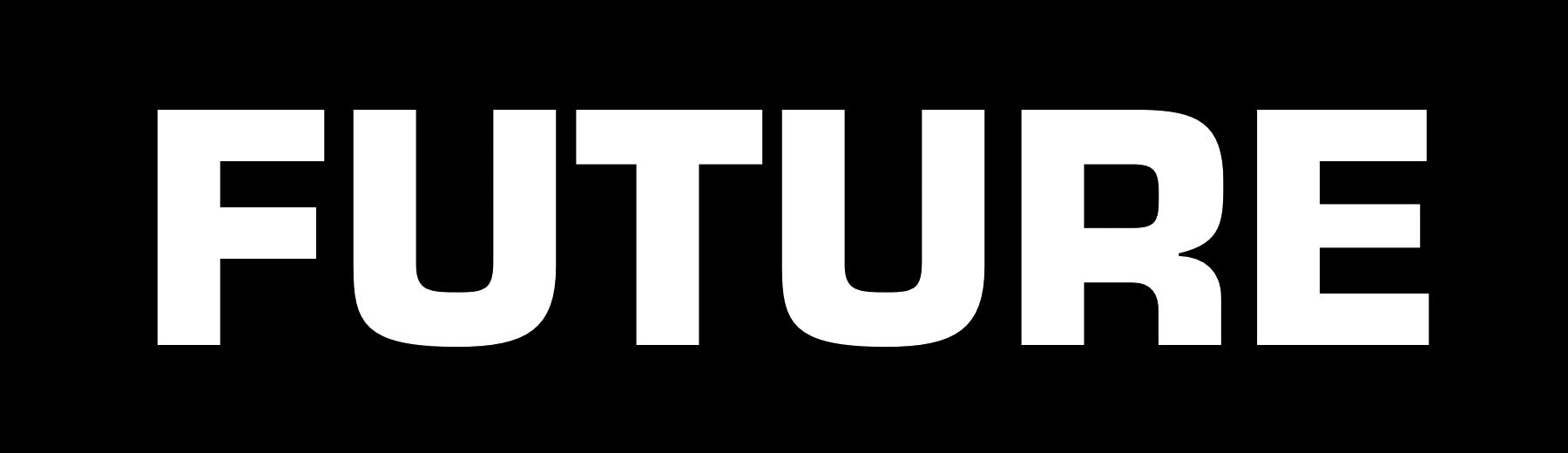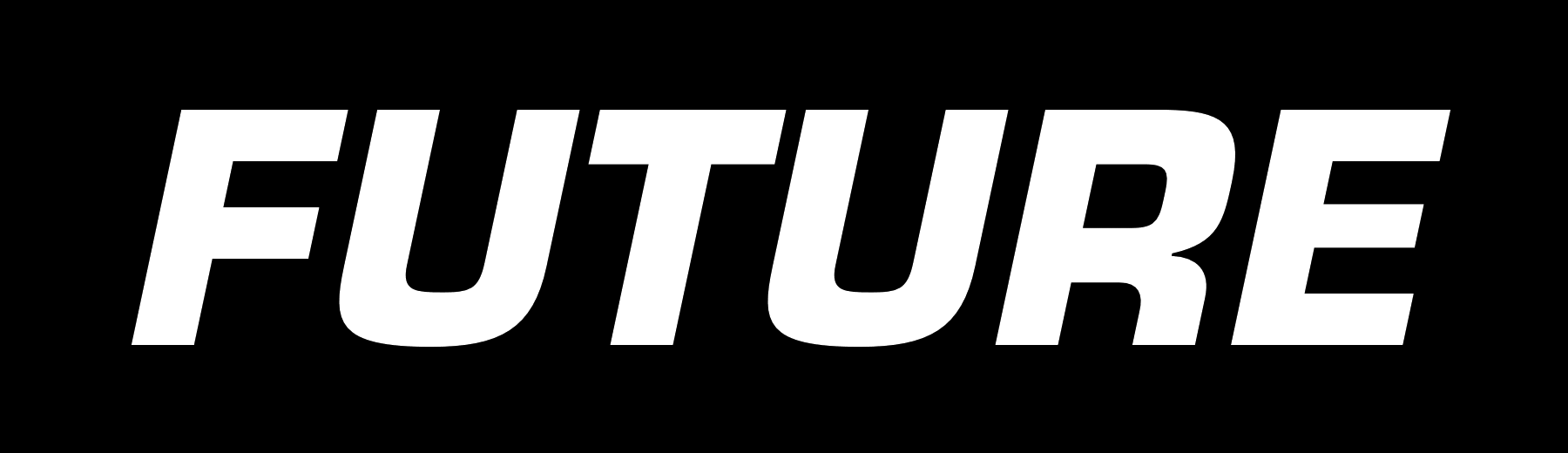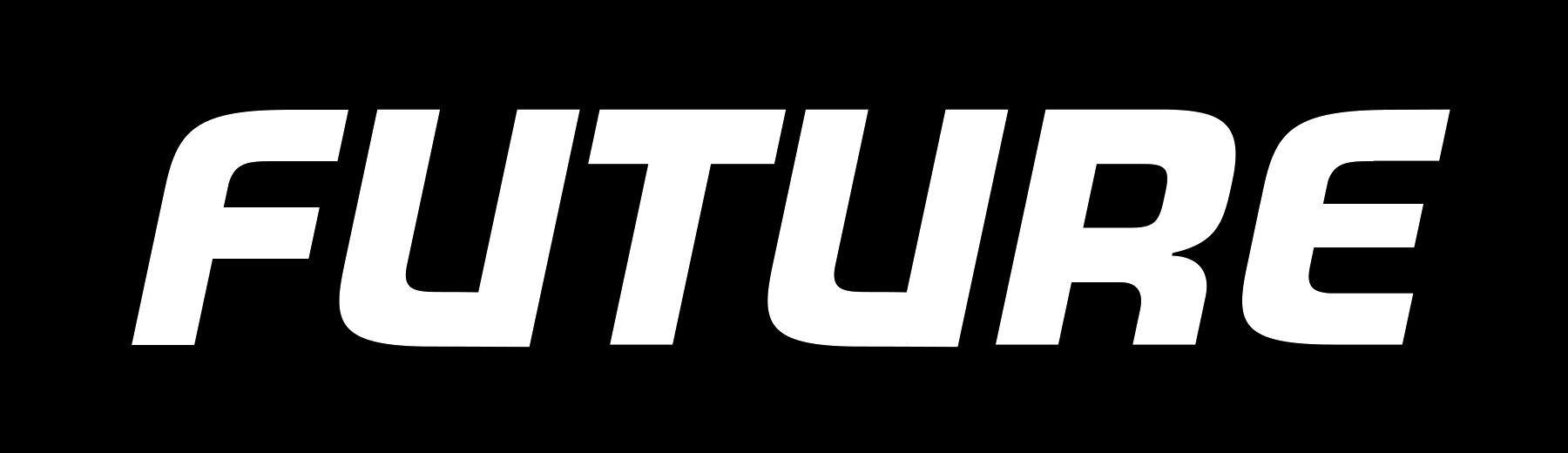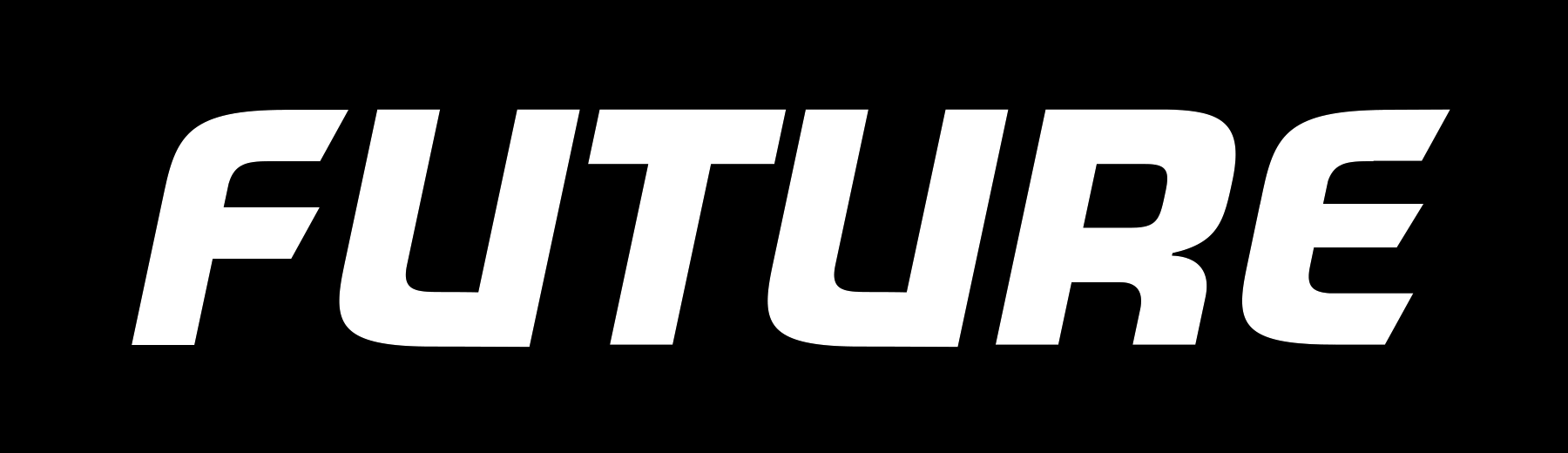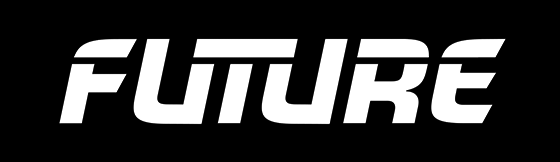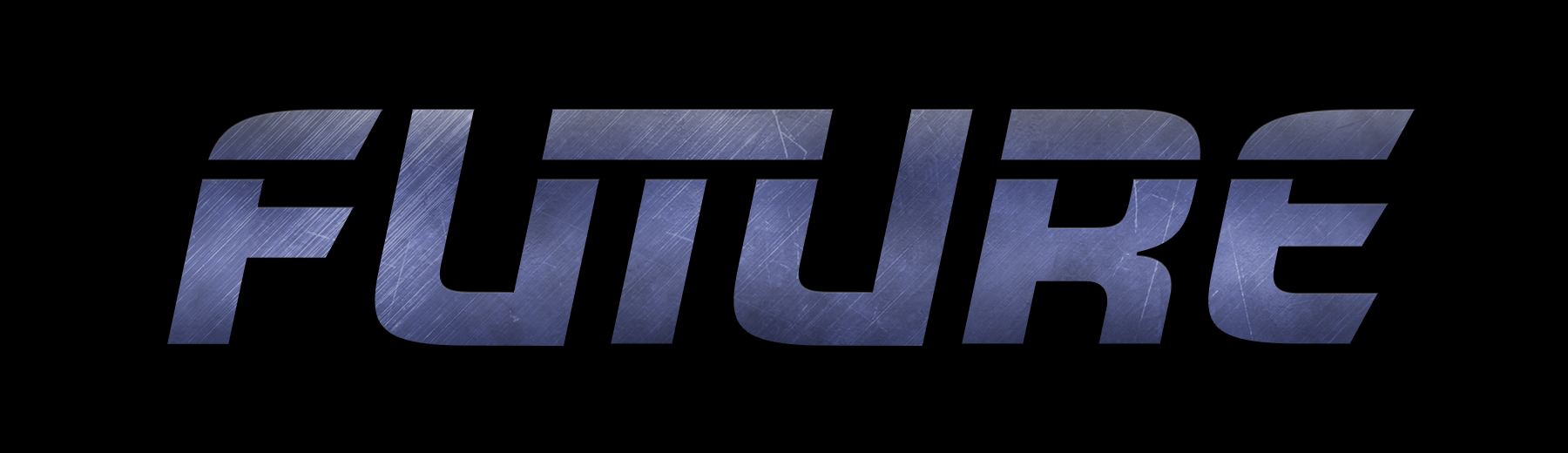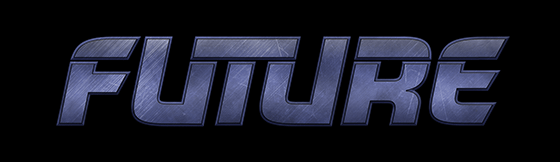
How To Make Your Text Look Futuristic
We’ve already seen how Eurostile Bold Extended is spectacularly effective at establishing a movie’s timeframe. But if Eurostile isn’t enough, there’s more you can do to clarify your movie’s timeframe. I’d like to introduce you to six easy rules that are pretty much guaranteed to position your text firmly in the FUTURE.
We’ll start with some simple sans-serif text, such as this randomly chosen word in Eurostile Bold. So far, so 2016:
Rule 1: First, let’s add an italic slant. We want it to look like the text is stretching towards 2020:
Hmm. It’s still a little boring. Rule 2: What if we make things a bit more curvy in some places, and a bit more angular in others? I hear that’s all the typographic rage in 2035:
That’s much better! There’s still more we can do, mind. Rule 3: How about adding some consummate Vs to a few of the letters? Yeah! That’d be cool!
Hello, 2050:
There’s still something missing, however – we’ve forgotten to take into account the devastating Kern Wars of 2067. Rule 4: Let’s combine a few letters into one, to make sure we’re not violating the Kern Tithe:
Now we’re talking! Let’s end with Rule 5: Remove an entirely pointless and arbitrarily segment of the text. In this case, we’ll remove a horizontal line from the majority of the word:
WOAH. That looks amazing! Who knew 2092 was so easy to reach?
D’you know what –I think we need a Rule 6 too. Let’s add a noise texture, some shamelessly steel-brushed metal, and a bit of moody blue lighting:
Finally, let’s emboss it to within an inch of its life:
…and add a god-damn star field:
BOOM. Welcome to the FUTURE!
Here’s how it looks if you put the whole thing together:
Now. Various permutations of these six rules have been applied in many different movies. Perhaps the Ur Example is Ridley Scott’s Blade Runner, which I may have slightly copied in my example above:
Blade Runner is far from the only example, however. The logotype for 2003’s Battlestar Galactica miniseries follows pretty much every rule to the letter (and adds some extruded Eurostile Bold Extended for good measure):
Transformers is similarly all-encompassing, taking the brushed metal effect to the extreme:
Guardians of the Galaxy also uses pretty much every trick apart from the italics:
…whereas RoboCop is all about those consummate Vs, plus the world’s most extreme embossment:
Star Wars, of course, takes Rule 4 and runs with it all the way to the bank:
…whereas The Amazing Spider-Man follows nearly all of the rules (and takes Rule 2 to extremes), although it will be receiving a visit from the Tithe Kern Police for Opportunities Missed:
Captain America: The Winter Soldier really likes applying Rules 2 and 3, plus some of the best Rule 6 you’ll ever see:
Alien vs. Predator is ridiculously italic and metallic:
G.I. Joe: Retaliation uses every trick apart from the kerning:
And WALL·E is all about Rule 2:
Finally: if you have any lingering doubts that these six rules spell FUTURE, here are Rules 1, 2, and 4 in action for the iconic logotype for none other than Back To The Future itself:
Hello, the FUTURE. It’s good to be back.
UPDATE: Several people have noted that I missed pretty much the textbooking-est textbook example of this trope – namely, Star Trek: The Next Generation:
I mean seriously. It even has a God-Damn Star Field in the background. (I swear I didn’t have this logotype in mind when I wrote the article, but boy, does it prove the point.)
1. I feel like there should be a mention of pretty much every incarnation of Star Trek, except Enterprise (which you already covered in the related Eurostile Bold article, of course). ST:TNG is pretty much the ur-example although pretty much all of the series are guilty to some extent.
2. I’m surprised you didn’t even include the title that I assumed you were building toward the whole time – Star Trek: The Next Generation!
Would love to get your impression of the LCARS computer GUI used in various Star Trek series.
If I may, would you think that “tracking” the typeface would be another rule? See W A L L – E , B A T T L E S T A R, R E T A L A T I O N.
7. Sidebar on the Captain America wordmark: I’m not sure the designer back in 1940 ever intended for it to be seen as “futuristic” at all when they came up with the original version of it for that first comic book.
9. You say on your page for the movie “2001”, “In a subsequent close-up, we see that the craft also features the IBM logo in its pre-1972 version, set in City Medium, as designed by Paul Rand.” Yup, IBM went whole-hog on Rule 5.
10. I think it’s important to note that Star Wars is not set in the future. As very clearly stated in a disclaimer included at the start every film, it is set a long time ago.